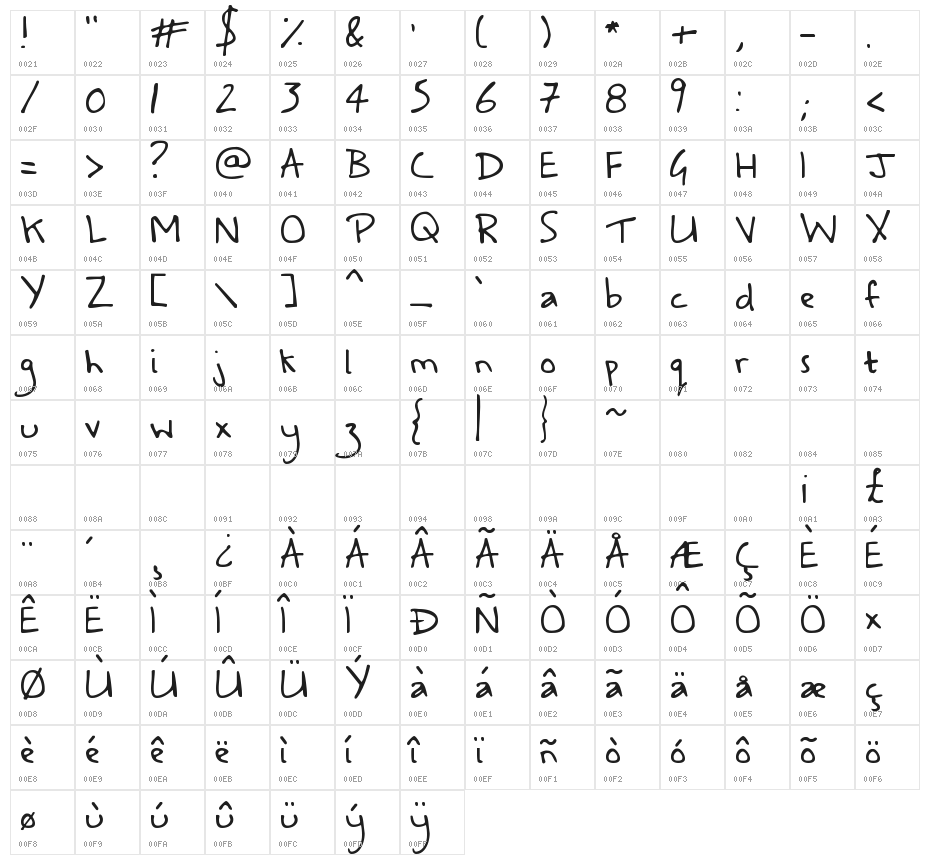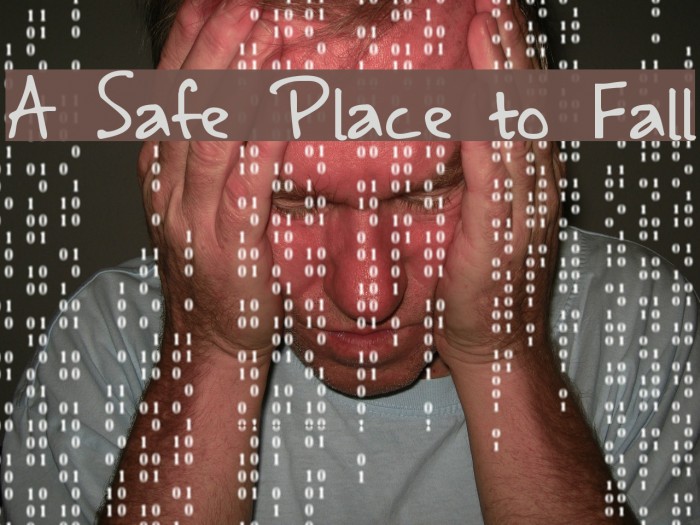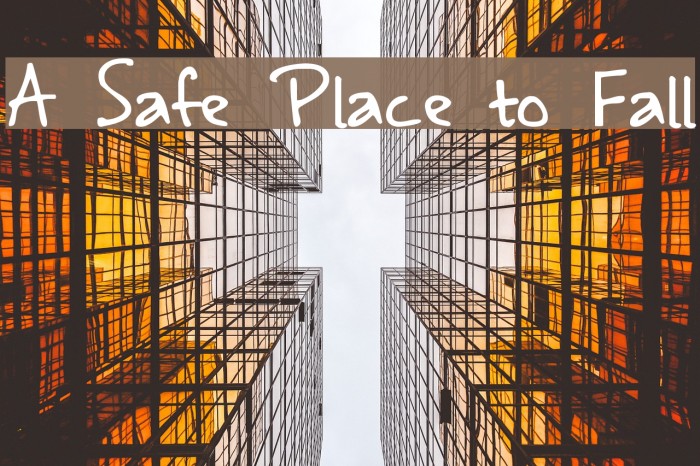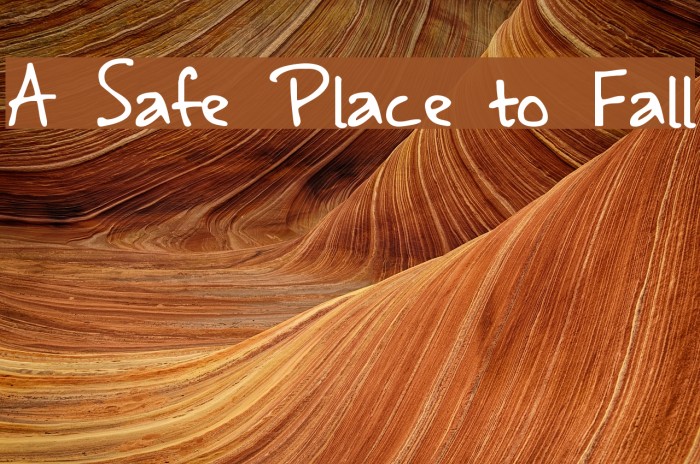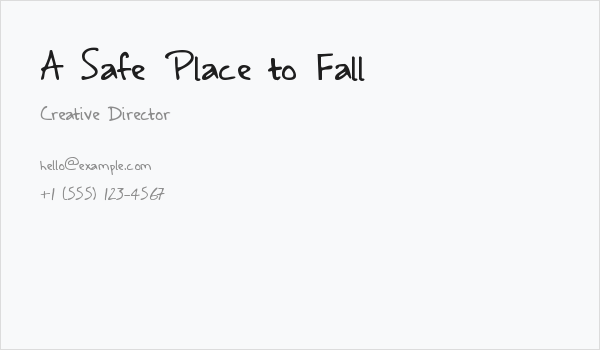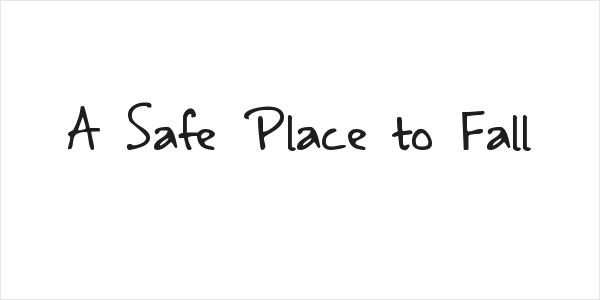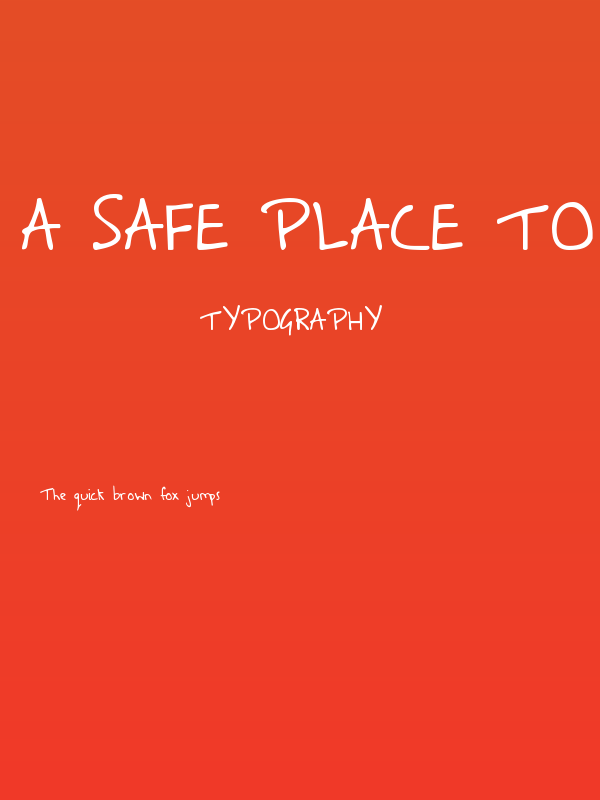
A Safe Place to Fall Font
A Safe Place to Fall Description
This font exhibits a playful and casual handwritten style, characterized by its uneven strokes and slightly irregular letterforms. The uppercase letters are bold and prominent, while the lowercase letters maintain a consistent flow, adding to the font's informal charm. Numbers and special characters are crafted with the same whimsical touch, ensuring a cohesive look across all glyphs. The font's overall appearance is approachable and friendly, making it suitable for projects that aim to convey warmth and personality. Its unique style is perfect for creative designs that require a personal touch.
Overall StyleCasual, Playful
Use CaseHeadlines, Informal text, Creative projects
Proposed ProjectsIdeal for greeting cards, children's books, personal blogs, and playful branding projects.